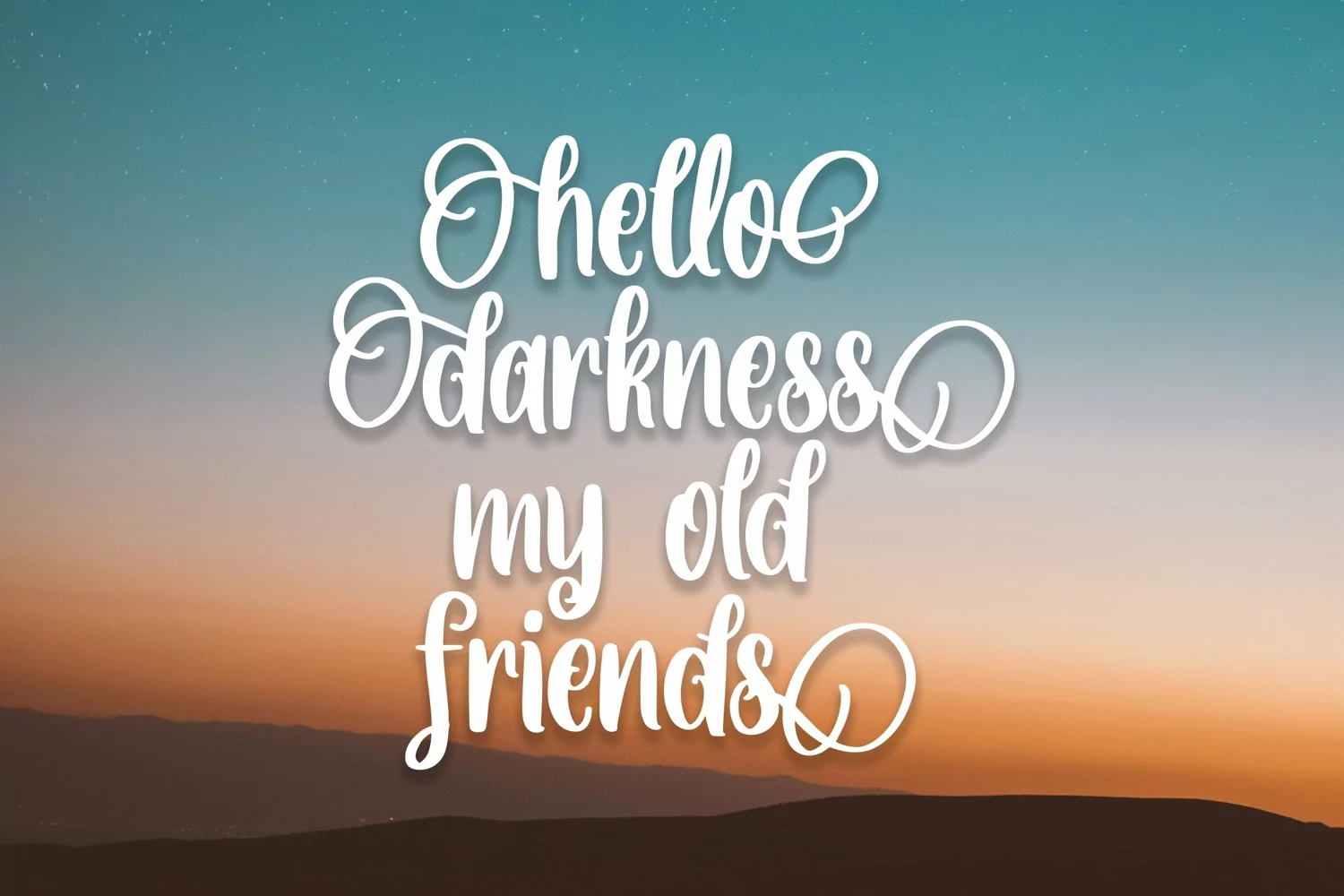
Hampers - Beautiful Handlettering Font
Hampers - Beautiful Handlettering Font that contain lowercase, uppercase, symbol, and also support multi language. There’s a lot ligatures in this font. This Font also comes with ligatures, alternates and many more. this font suitable for fashion, branding, catalog and other design what you want.